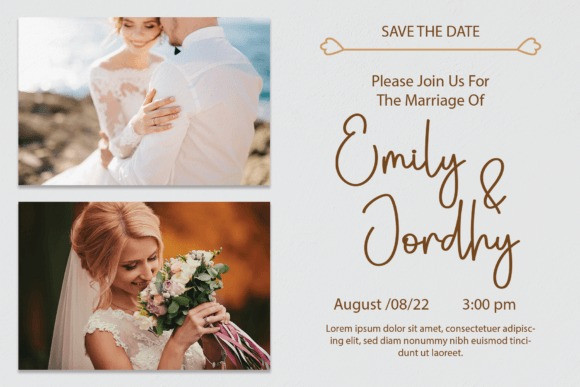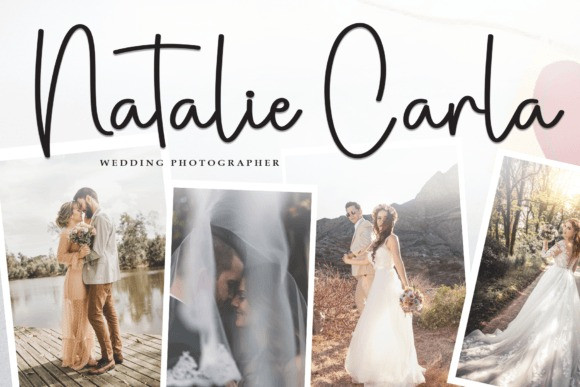
Beauty Hearth Font
Beauty Hearth Font is a lovely and timeless handwritten font. It is the best choice for creating eye catching logos, branding and quotes. Every letter has a unique and beautiful touch, which will make your design come alive